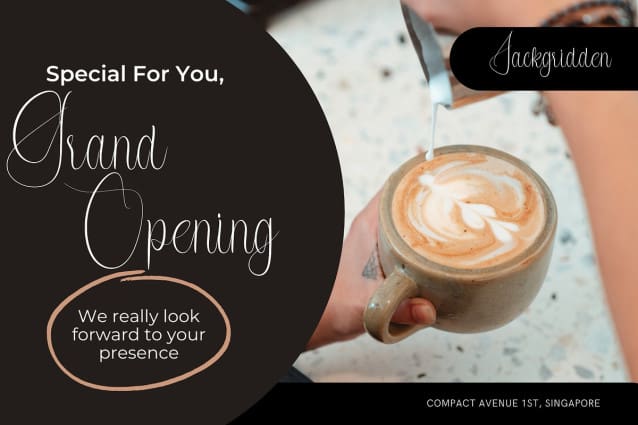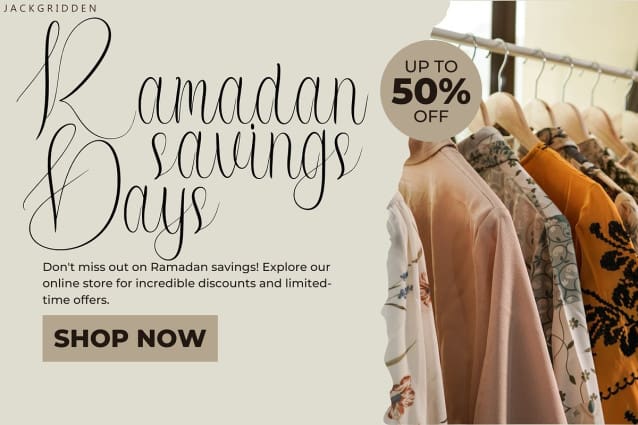
Kalligrarts Font
Kalligrarts Font suggests a fusion of “calligraphy” and “arts,” indicating a font that embodies both the elegance of handwritten script and the artistic flair associated with calligraphic styles. Here’s a description you could use:
“Embrace the artistry of handwritten elegance with Kalligrarts Font. This meticulously crafted script font captures the fluidity and grace of calligraphy, inviting you to infuse your designs with sophistication and charm. Whether you’re creating invitations, branding materials, or decorative pieces, Kalligrarts adds a touch of timeless beauty and refined craftsmanship to your projects. Elevate your designs with the exquisite allure of Kalligrarts today.”